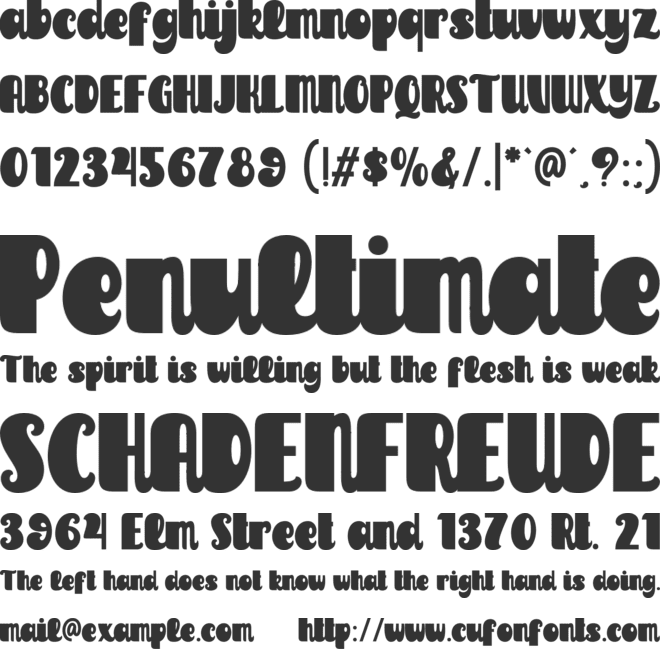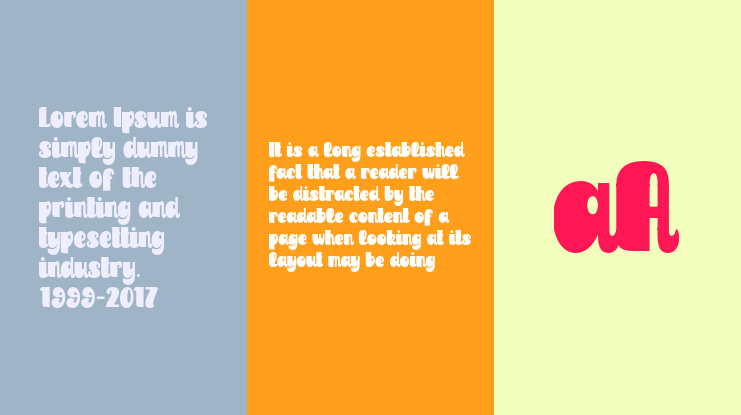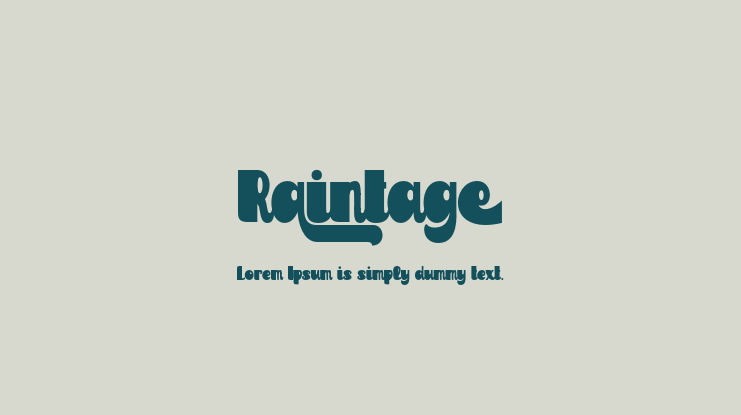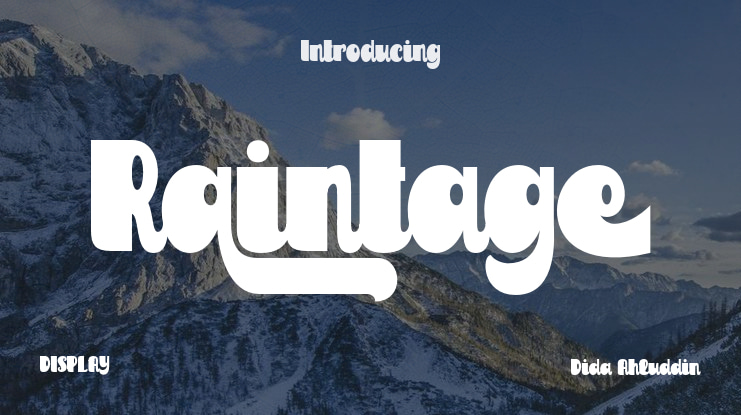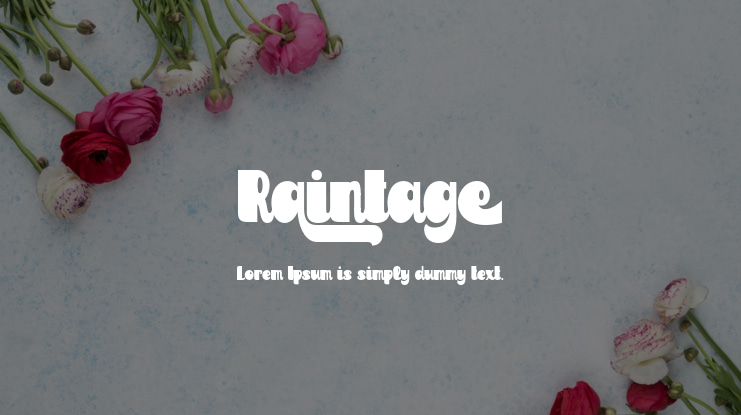
Raintage Font
Raintage exudes a playful sense of nostalgia while offering an extraordinary vintage retro look. Incorporate this charming display font to infuse any design concept with a distinctive retro flair! Meticulously crafted to become a beloved choice, this font has the ability to elevate all your creative ideas to new heights!
Additionally, this font is PUA encoded, allowing easy access to all the unique glyphs and swashes!